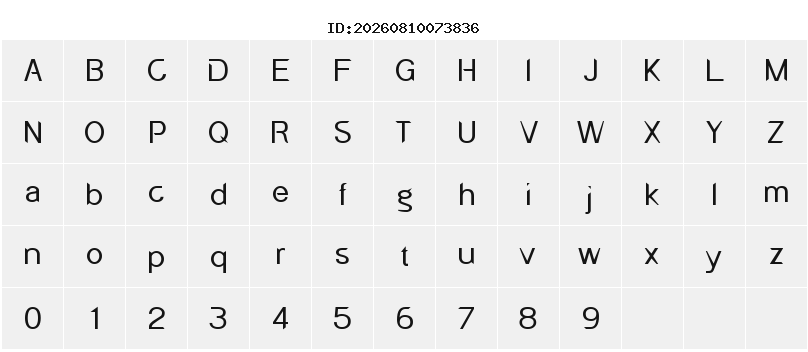
• Font Name: POE Redcoat New
• Designer: Daniel Lyons
• Manufacturer: The Powerhouse of Entertainment
• Description: Better than the previous.
About POE Redcoat New.ttf
POE Redcoat New.ttf is a modern, elegant sans-serif font designed for ultimate readability and visual harmony. Perfect for branding, headlines, web design, and print materials.